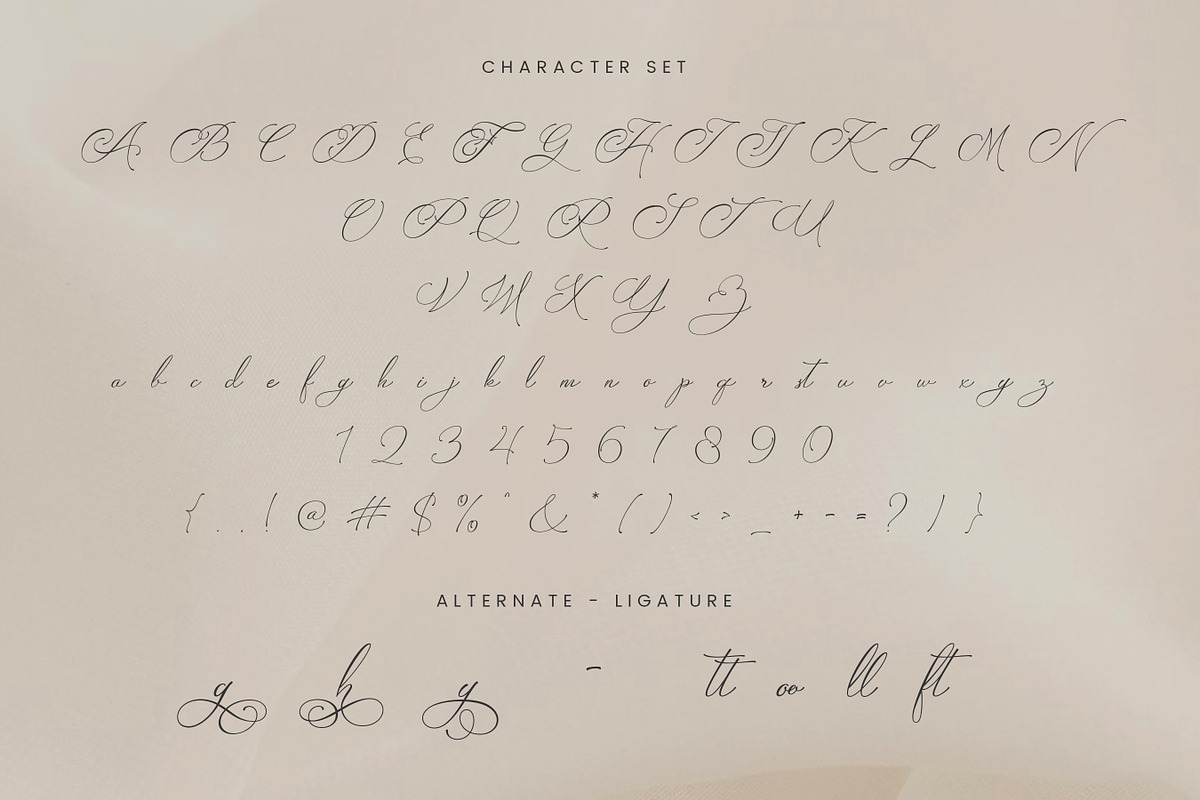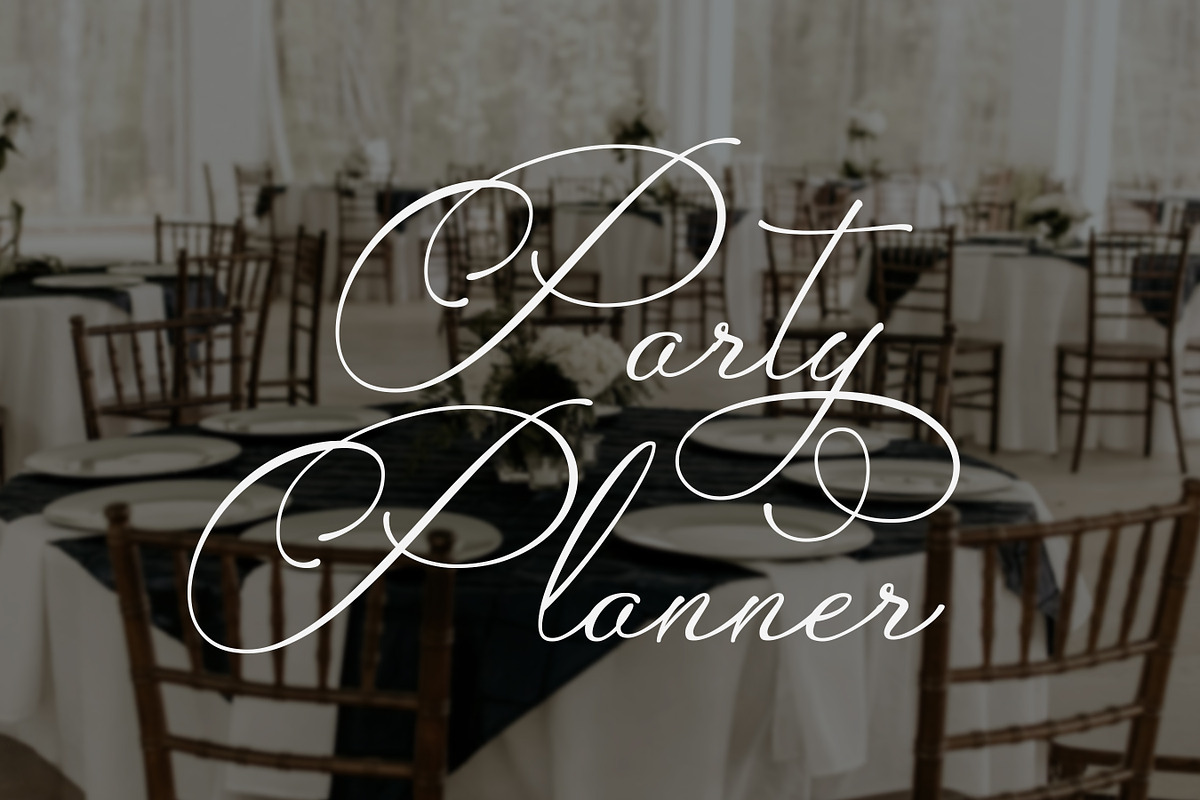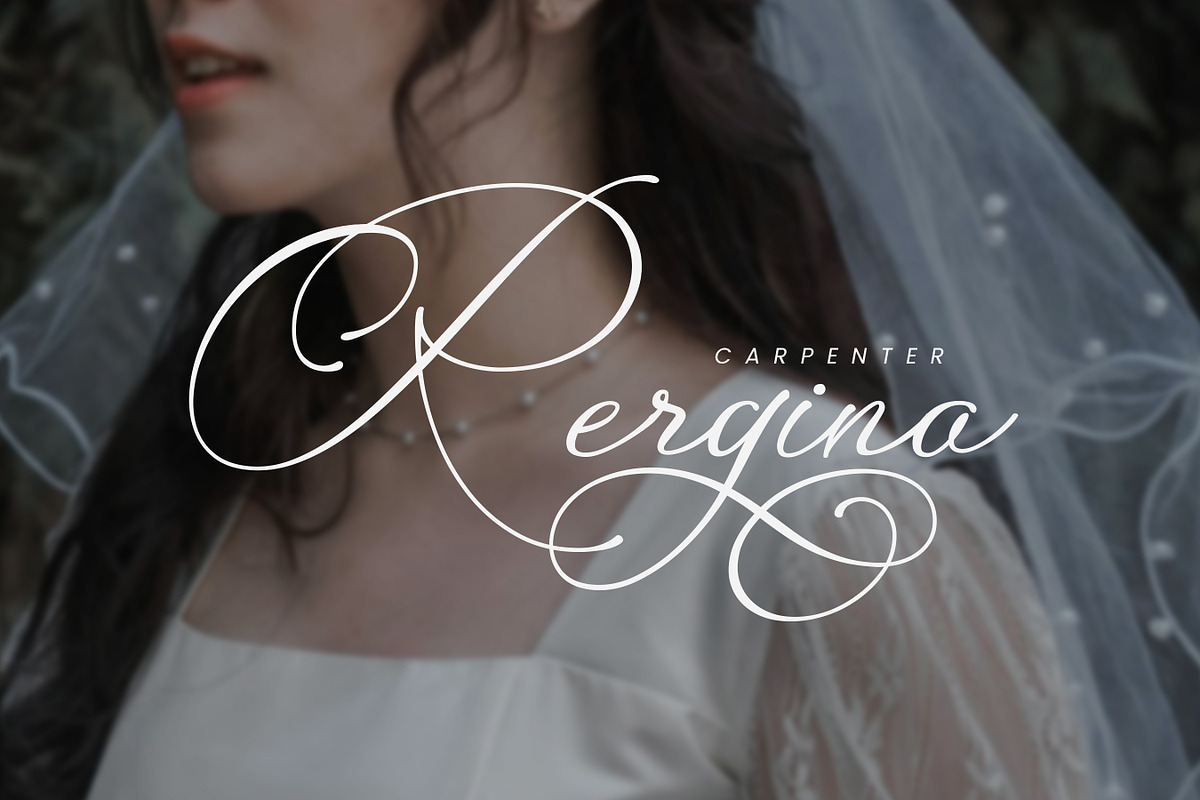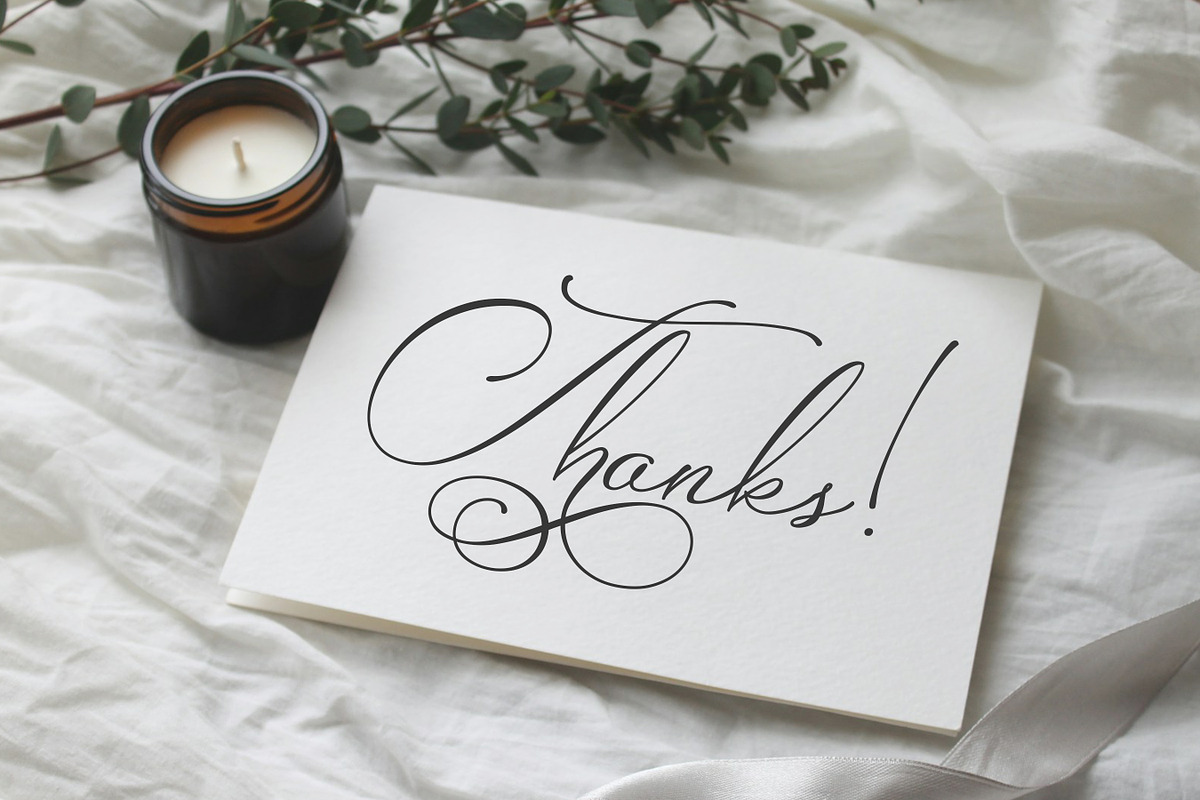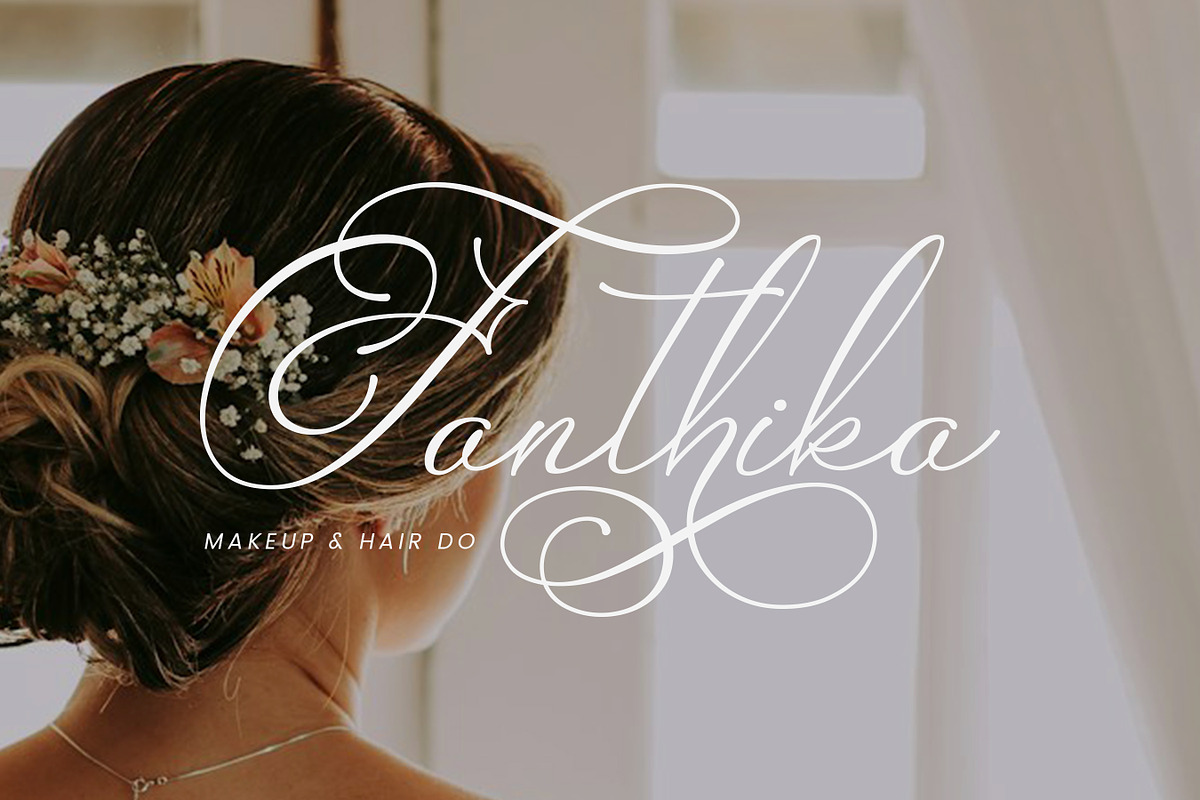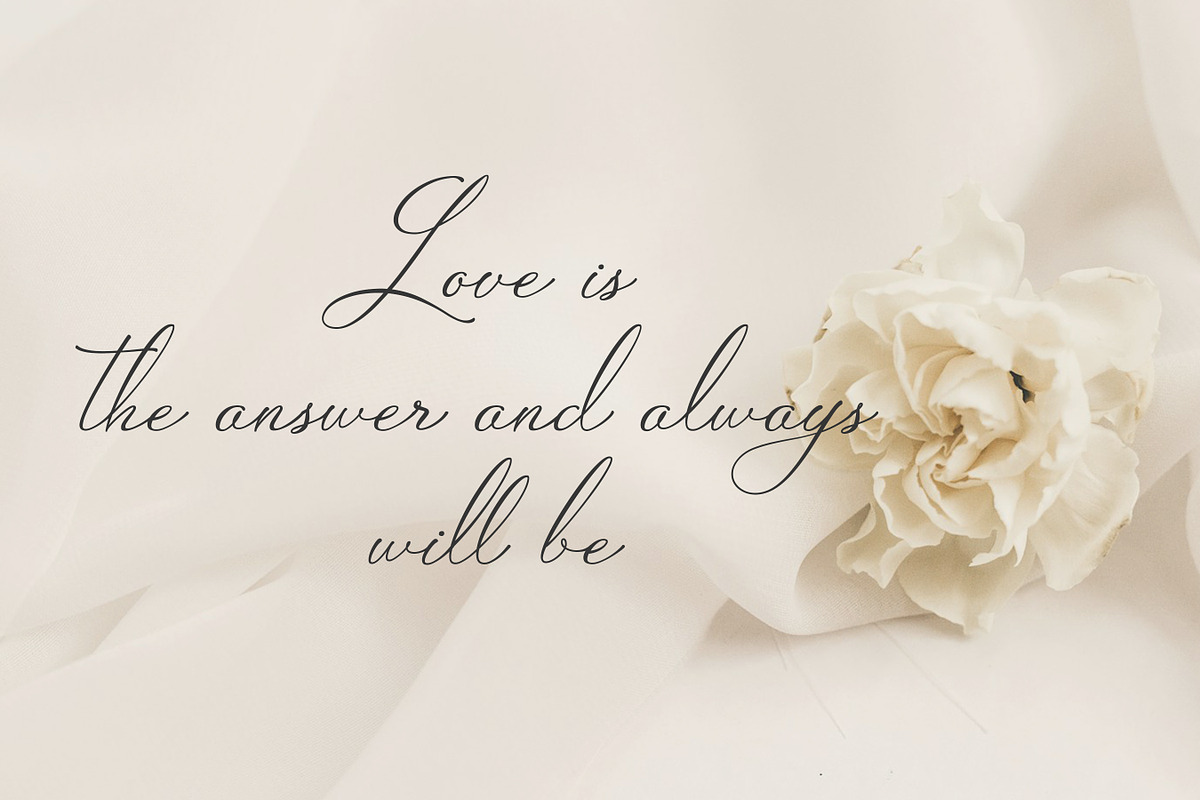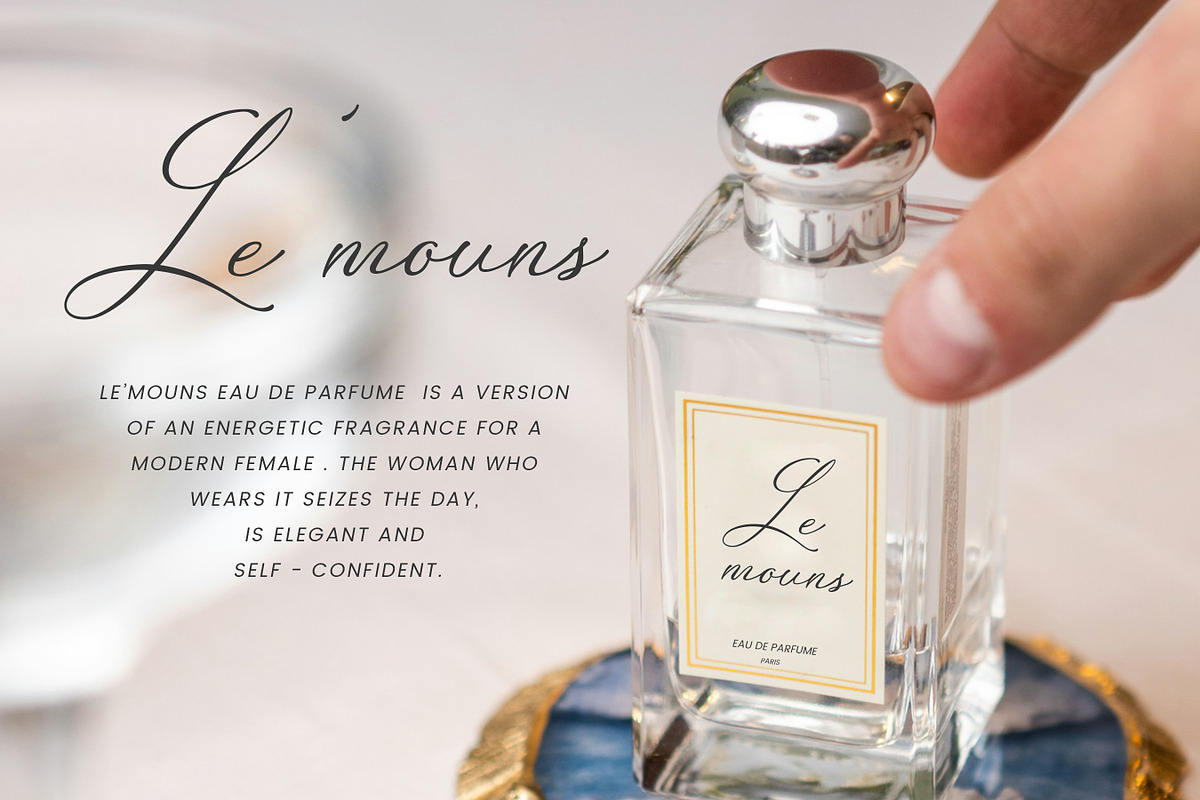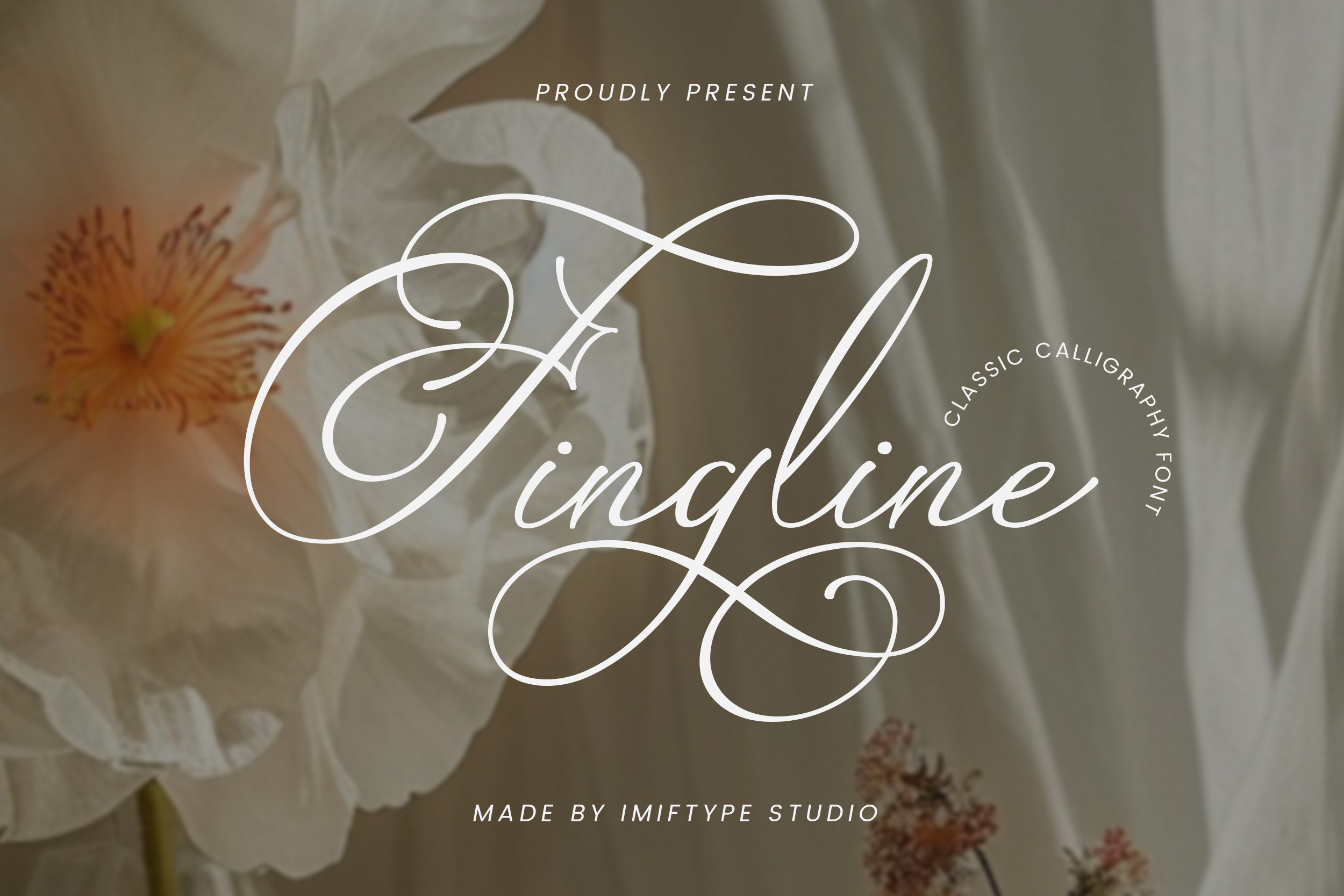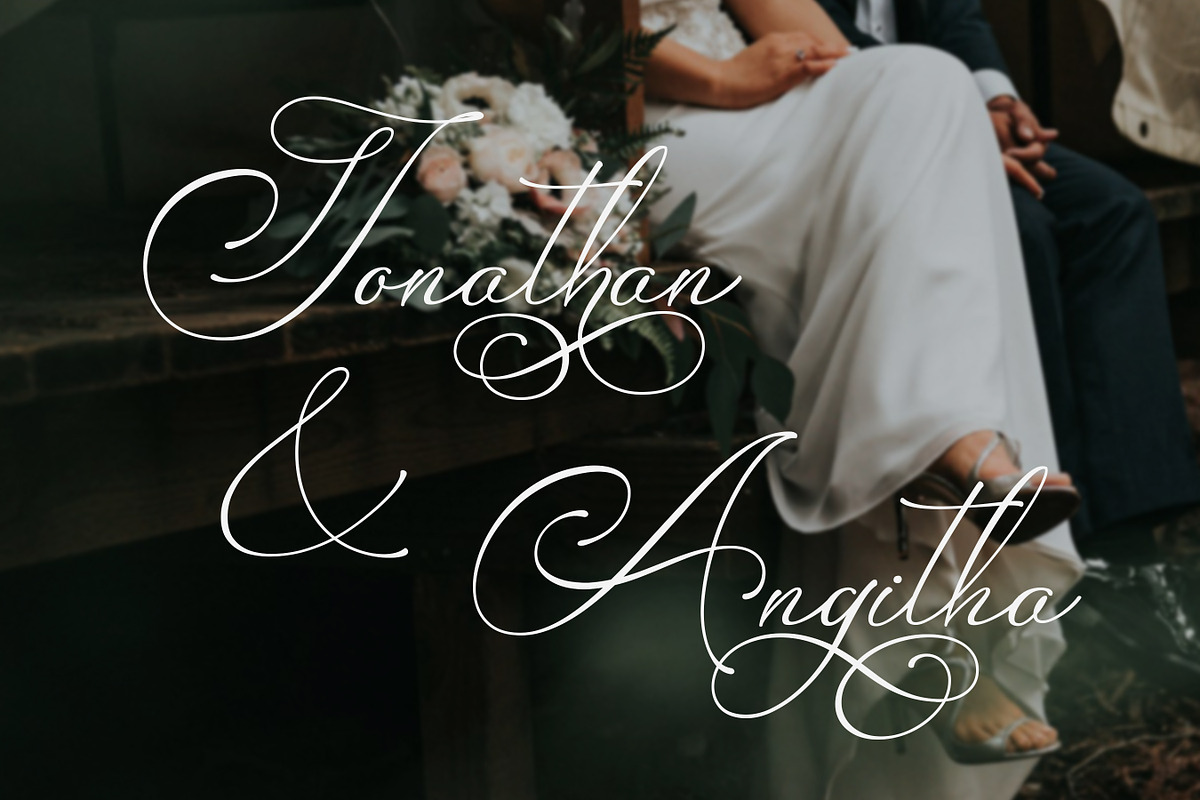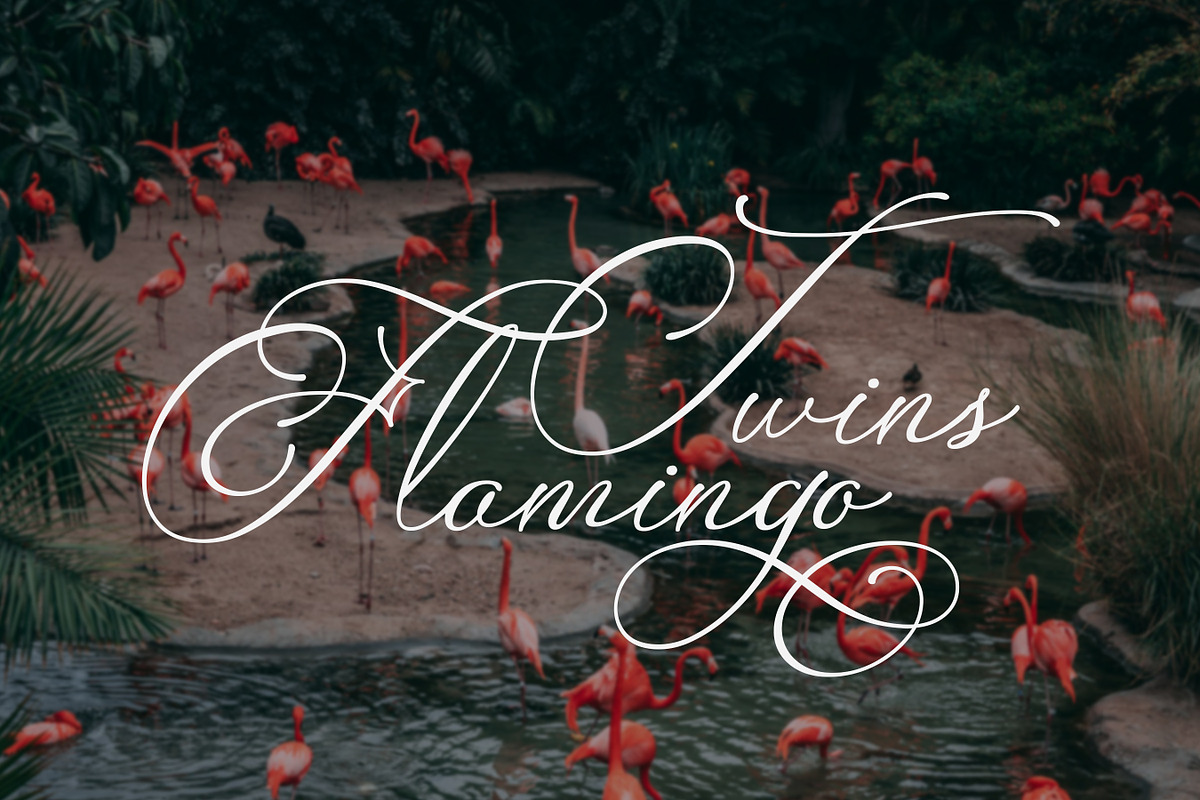
Fingline – Classic Calligraphy Font
Fingline is a classic calligraphy font designed to express elegance, romance, and timeless beauty. Featuring graceful strokes, flowing curves, and refined flourishes, Fingline delivers an authentic handwritten calligraphy feel with a luxurious touch.
This font is perfect for wedding invitations, branding, logos, editorial designs, certificates, quotes, packaging, beauty products, and fashion projects. Its classic style brings a sophisticated and romantic atmosphere while maintaining excellent readability and balance.
Fingline works beautifully for both digital and print applications. Whether you are creating formal designs, luxury branding, or artistic typography, this font adds charm, elegance, and a premium character to your work.
Carefully crafted with attention to detail, Fingline is an ideal choice for designers who seek a classic calligraphy font with graceful personality and timeless appeal.